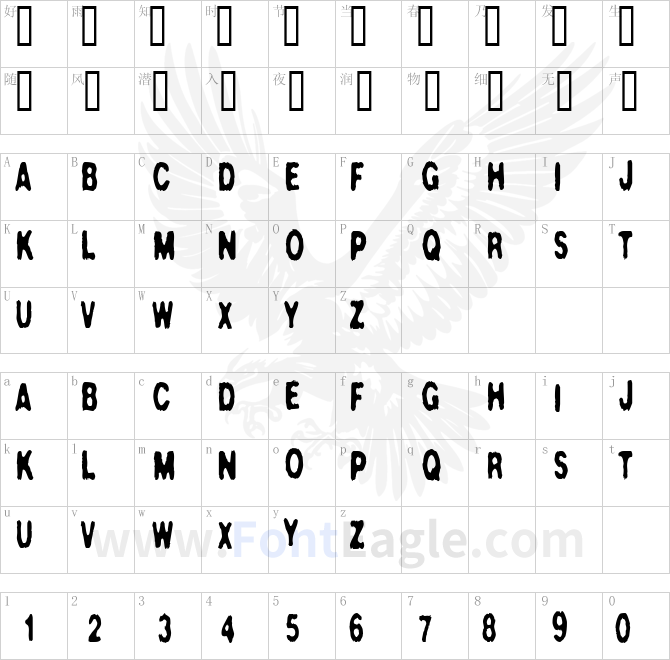
CrushNo47 is a great font, widely used in graphic design, single-page menu design, poster design and other fields, and is deeply loved by designers.CrushNo47 download.